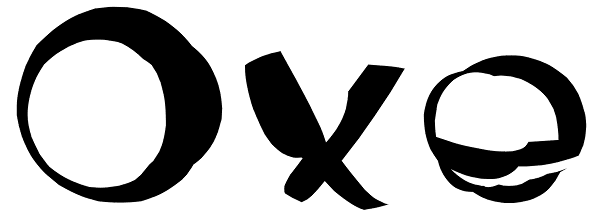
Oxe
Distort, expand and shrink. Working the shapes of letters as something fluid, like clay or rubber. The unexpected result leads young designers to bewilderment. Oxe is common expression among people in the northeast of Brazil, a slang that expresses...